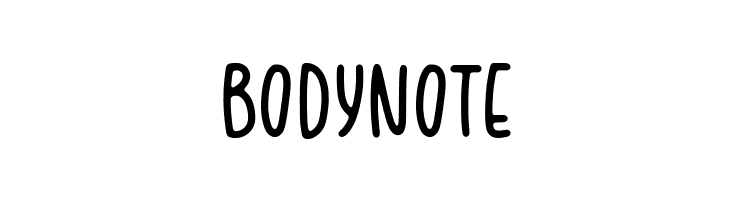
A playful, rounded handwritten font with a casual and friendly style.
A futuristic, angular font with sharp edges and geometric shapes.
A playful, handwritten font with tall, narrow letters and fluid strokes.
A playful, bird-themed font with unique illustrated characters.
A graceful and fluid script font with elegant cursive strokes.
A bold, graffiti-inspired font with dynamic curves and sharp angles.
A dynamic, handwritten-style font with artistic flair.